Retro Party - Display Retro Font
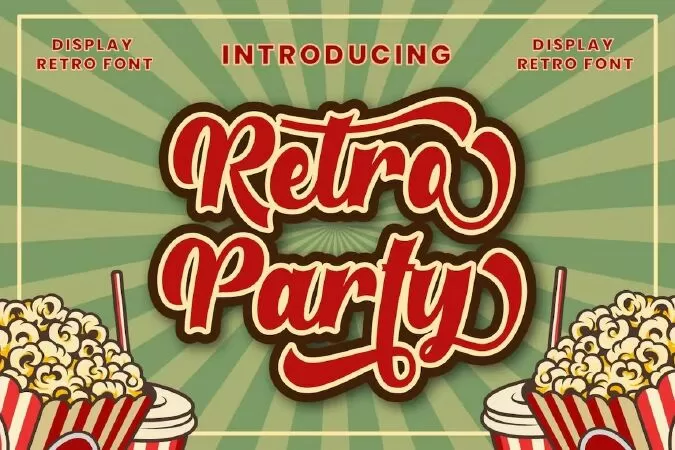
Introducing Retro Party - A Display Retro Script Font. In creating this font, I just wanted to combine classic style with modern retro style, so be this font. Hope you like it. Inspired by some retro fonts that I made before. Retro Party is perfect for vintage and retro design, badge, logos,t-shirt, poster, branding, packaging, signage, book coverand so much more!
Come with Opentype feature with a lot of alternates, its help you to make great lettering. This font is also support multi language.